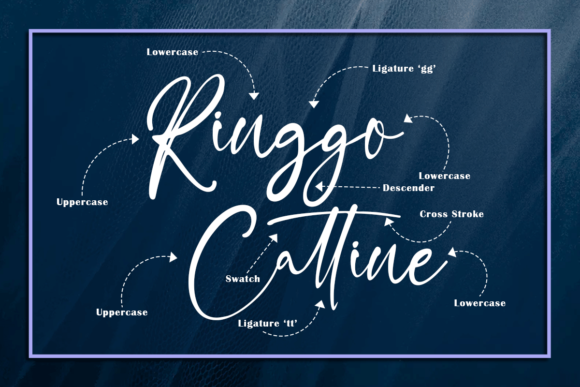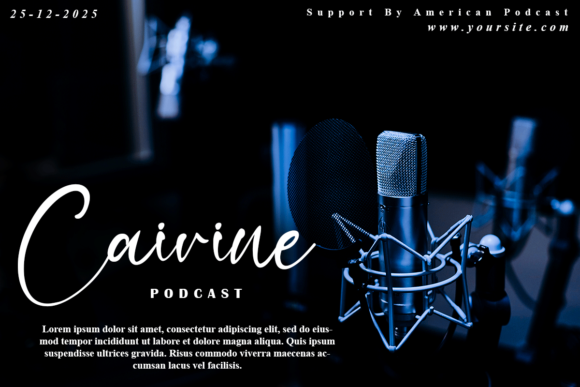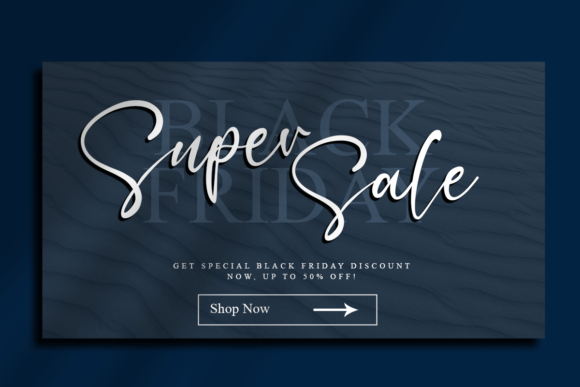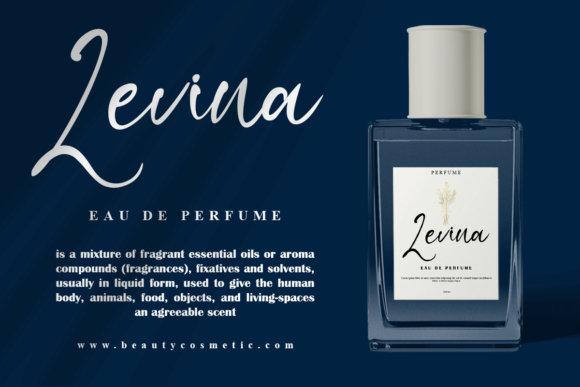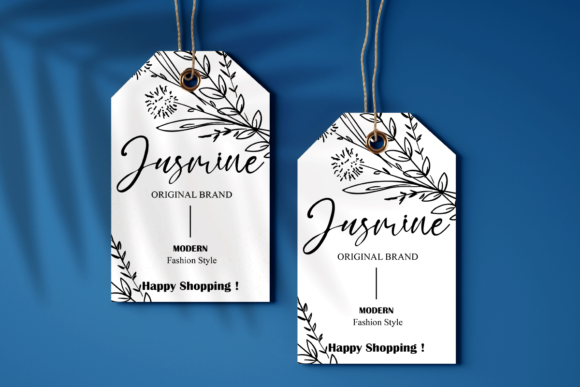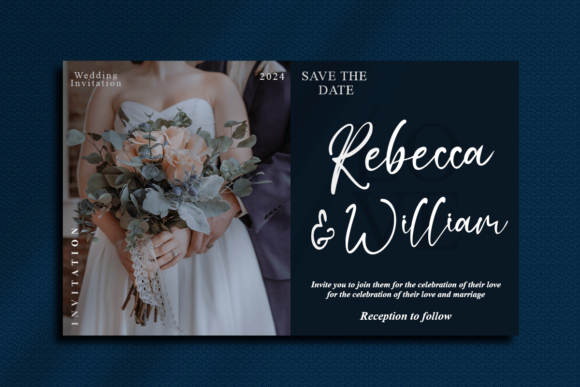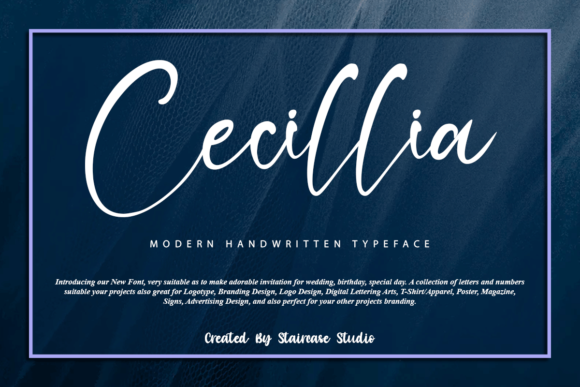
The Perfect Touch of Romance: Introducing Cecillia Font
As a designer, there’s nothing quite like the thrill of finding the perfect font to elevate a project. It’s that moment when everything comes together – the colors, the layout, and of course, the font. You know it’s the one when it feels like the words are dancing on the page. For me, that moment happened when I stumbled upon the sweet and delicate Cecillia Font.
This charming handwritten font is designed to bring a touch of romance and whimsy to any design project. With its dainty lines and joyful feel, Cecillia Font is perfect for writing wedding invitations, cards, and any other design that needs a personal and intimate touch. For designers, having Cecillia Font in their toolkit is invaluable, offering a unique way to add personality and charm to their work.
Cecilia Font Key Features
- Font Family: Cecilia, Cecilia Script, Cecilia Sans
- Unique Characteristics: The Cecilia font is a modern calligraphy script font, known for its elegant and refined look. It features connected letters, swashes, and flourishes, making it ideal for invitations, wedding stationery, and other high-end designs.
Cecillia Font Review
I recently had the chance to work with the Cecillia font, and I must say, it’s a solid choice for body text and headings. ✨ The font’s clean design and elegant lines make it perfect for formal documents and presentations.
Here are some of the things that work well with the Cecillia font:
- ✨ Versatile: It can be used for both body text and headings, making it a great choice for a wide range of applications.
- ✨ Easy to read: The font’s clean design and clear letterforms make it easy to read, even at small font sizes.
- ✨ Elegant: The font’s elegant lines and curves give it a sophisticated feel, making it perfect for formal documents and presentations.
- ⚠️ Limited character set: The font’s character set is limited, which may not be suitable for languages that require a wide range of characters.
- ⚠️ Not suitable for display text: While the font works well for body text, it may not be the best choice for display text, such as titles or headings that need to stand out.
Overall, the Cecillia font is a solid choice for body text and headings. While it may have some limitations, its clean design and elegant lines make it a great choice for formal documents and presentations.
For best results, use Cecillia font in headings and titles to add a touch of elegance and sophistication.
1. Wedding invitations and stationery
2. Luxury branding and packaging
3. High-end advertising and marketing materials